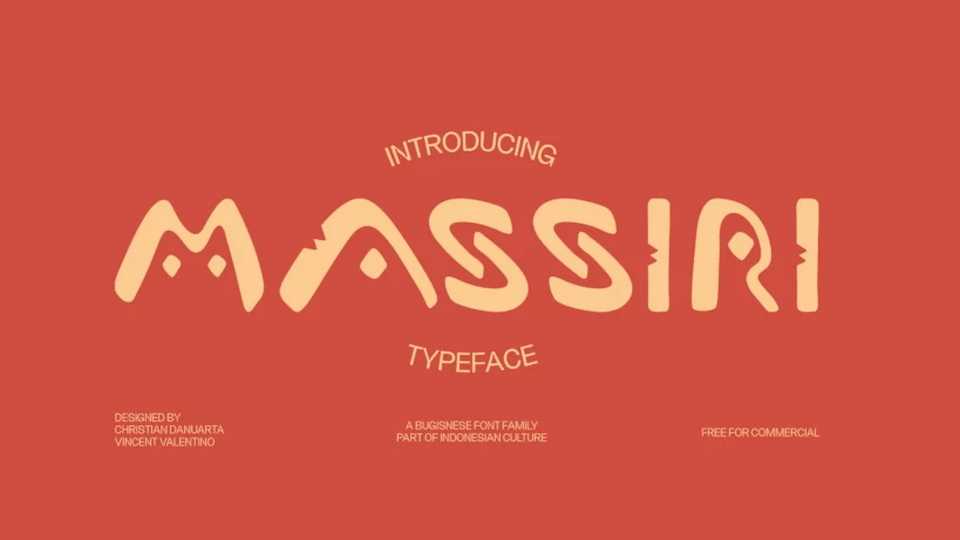
Download Massiri font, a decorative hand lettered typeface inspired by the Lontara Script from the Bugis tribe, part of Indonesian Culture.
Designer: Christian Danuarta